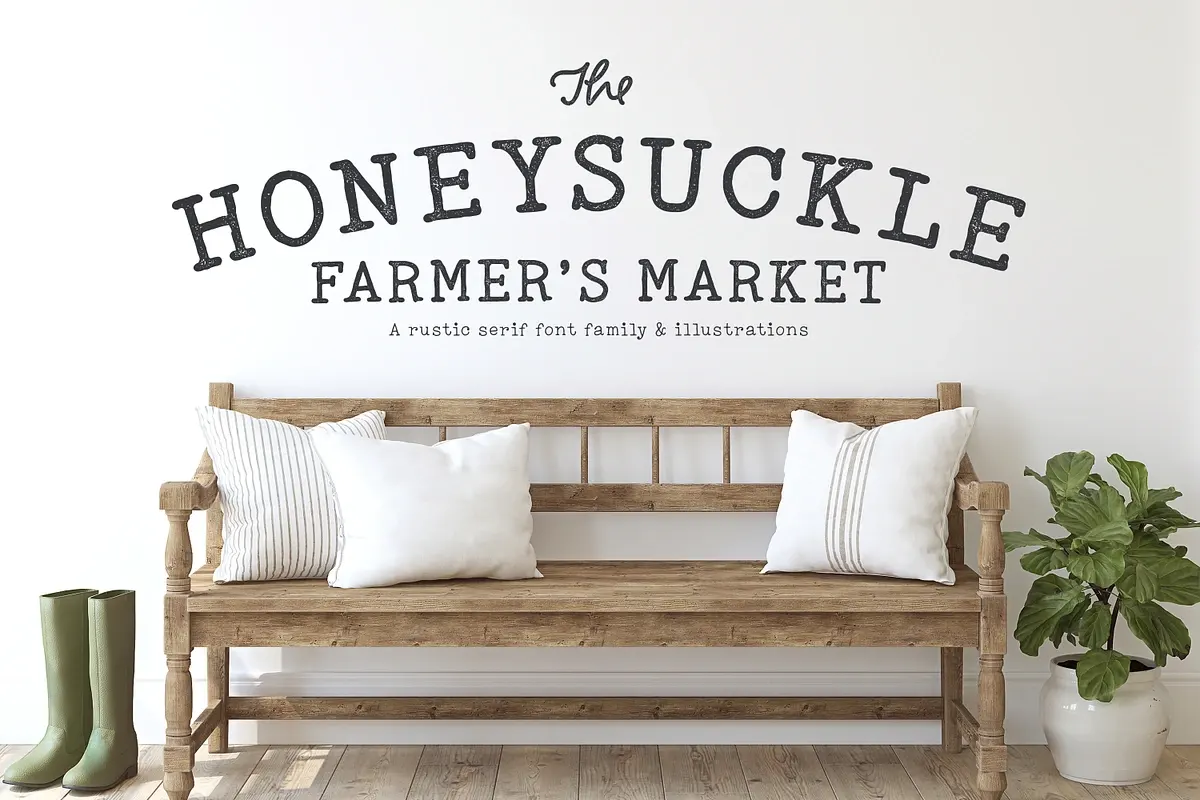
Honeysuckle Market Fonts + Elements Free Download is a charming and handcrafted font collection designed to bring a rustic, farmhouse-inspired feel to your projects. Paired with delightful design elements, this bundle is perfect for logos, signage, product packaging, labels, and creative social media content.
With its warm, handwritten style and carefully designed extras, Honeysuckle Market adds personality and authenticity to any design. Whether you're working on a homemade brand, a farmers’ market display, or cozy seasonal graphics, this font pack brings a touch of country charm and creativity.